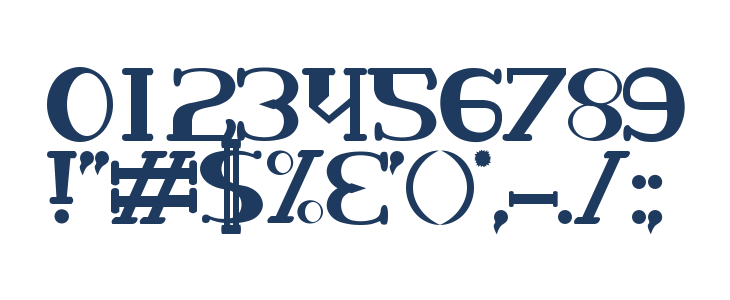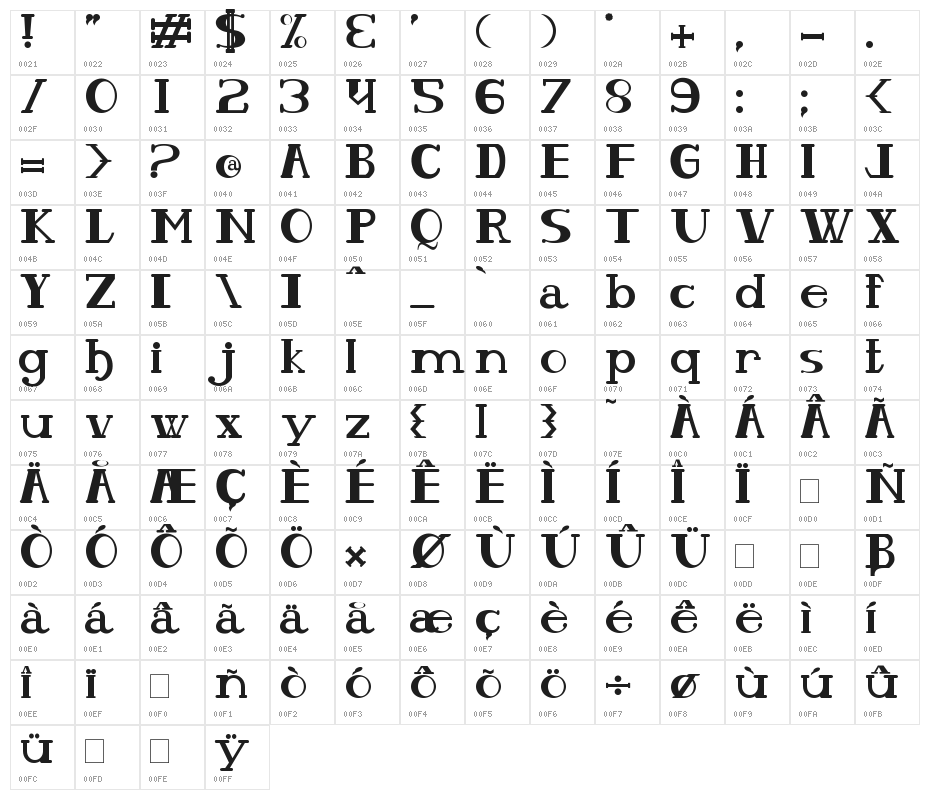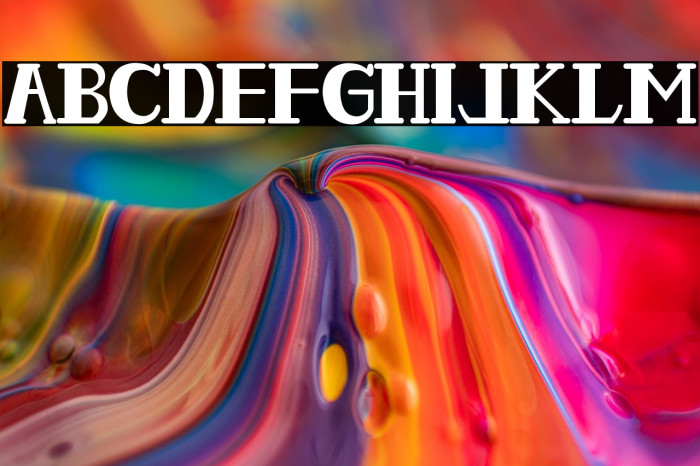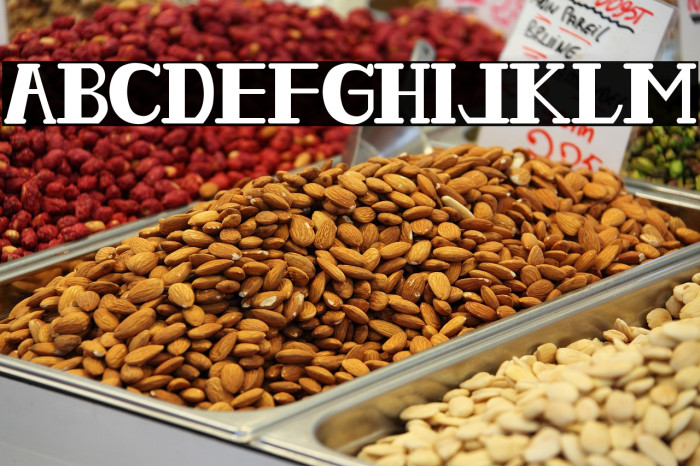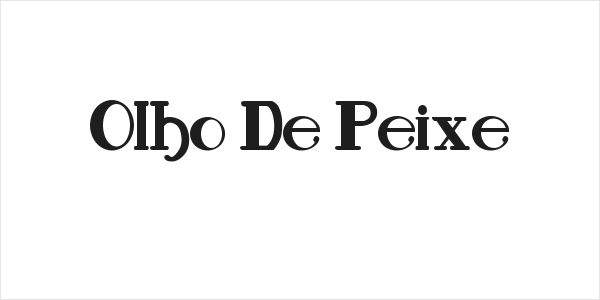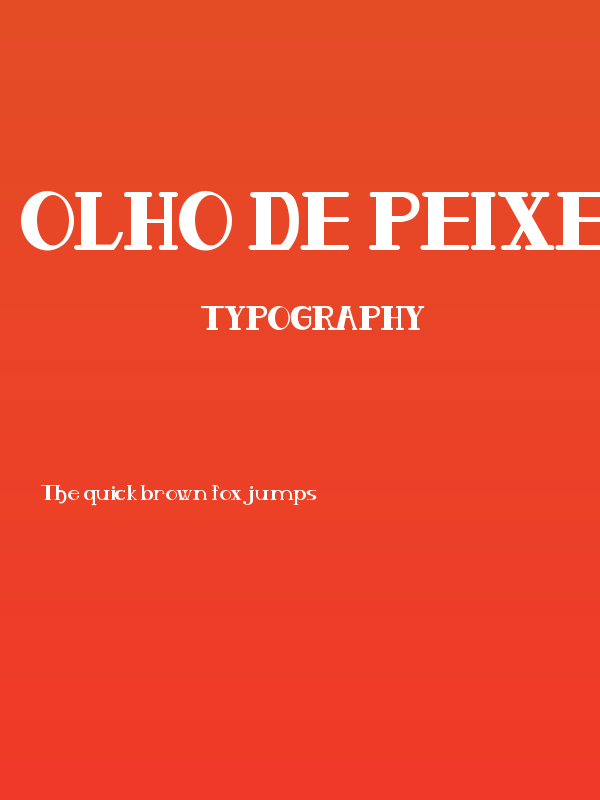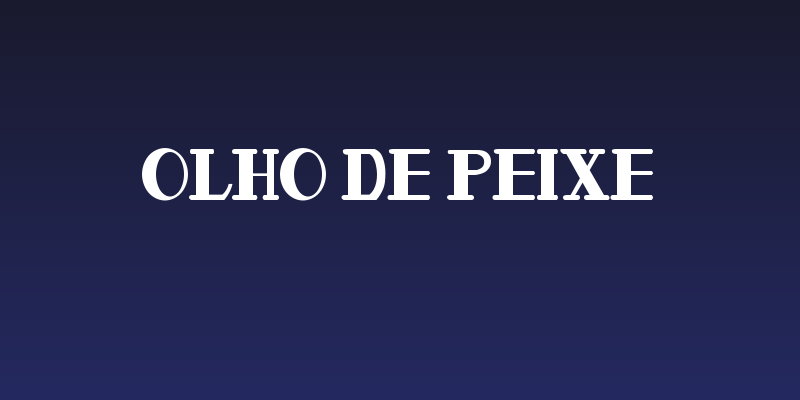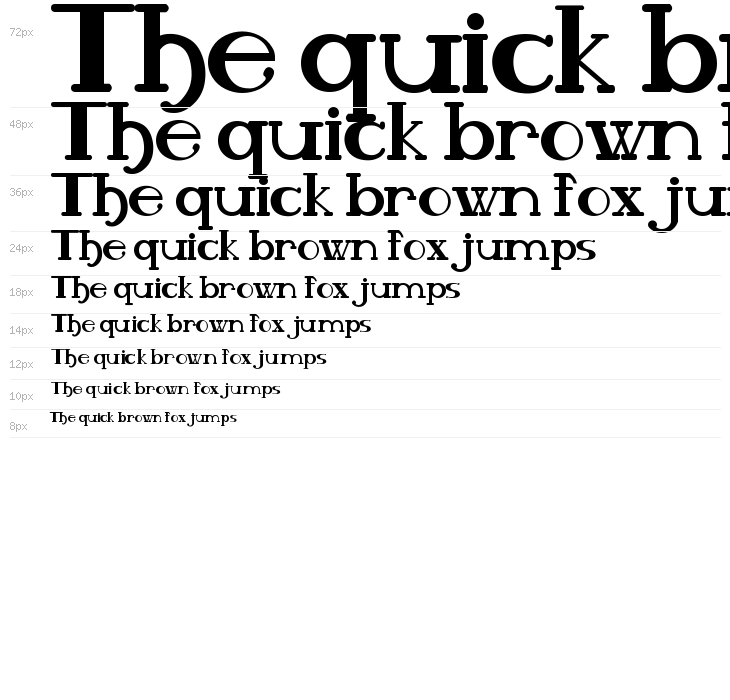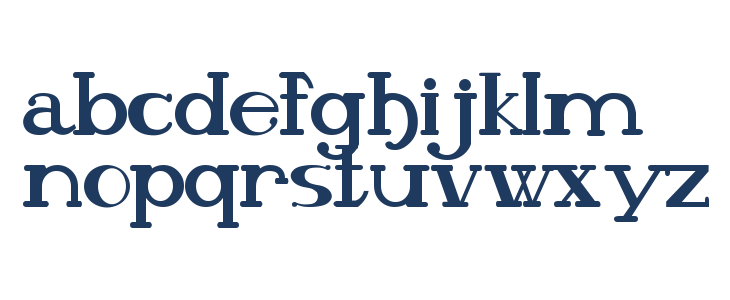
Olho De Peixe Font
Olho De Peixe Description
This font features a unique blend of modern and vintage elements, characterized by its bold and striking appearance. The uppercase letters exhibit a strong presence with their thick, consistent strokes and subtle serifs, while the lowercase letters maintain a harmonious balance with slightly rounded edges and a playful yet sophisticated flair. The numerals are distinct and bold, ensuring clarity and readability. Special characters are designed with creativity, adding a decorative touch that complements the overall style. The font's design is both eye-catching and versatile, making it suitable for a variety of applications.
| Overall Style | Modern, Vintage |
| Proposed Projects | Ideal for branding, headlines, posters, and editorial design projects. |